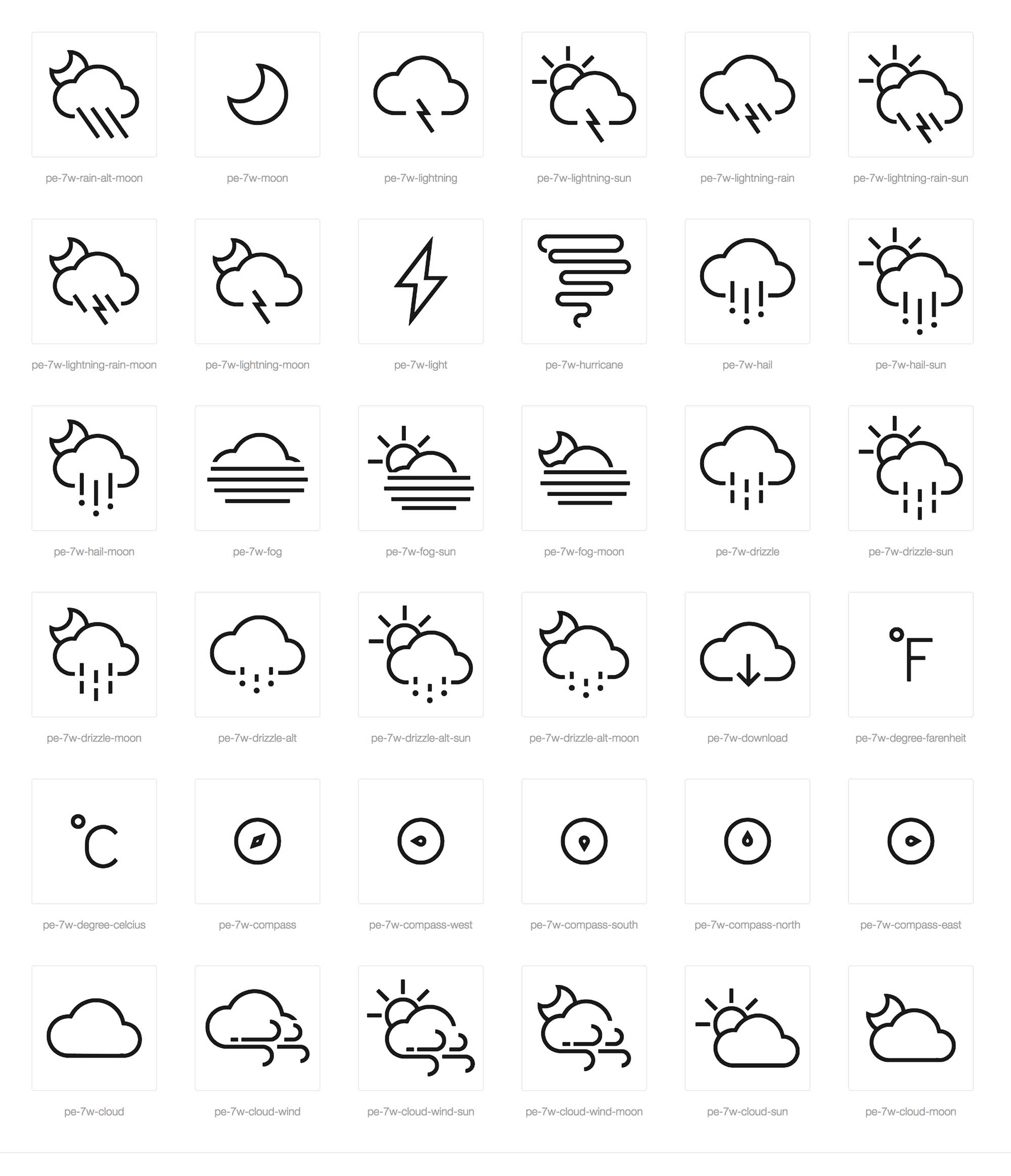
+23 Weather Fonts 2022. Ico weather is a set of 115 symbols depicting weather, temperature, weather forecast and astronomy. Click to find the best 30 free fonts in the weather style.
Weather Is A Cute And Casual Display Font.
Download free weather icon fonts for your project web, android, ios. It comes with beautiful doodles! Sunny, partly sunny, partly cloudy, showers, rain, thunderstorm, snow and.
To Name A Few, There Are Sun, Clouds,.